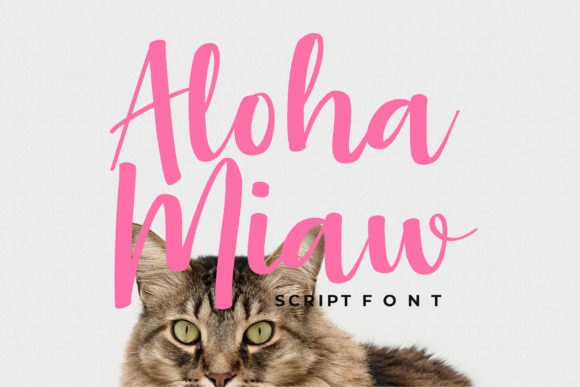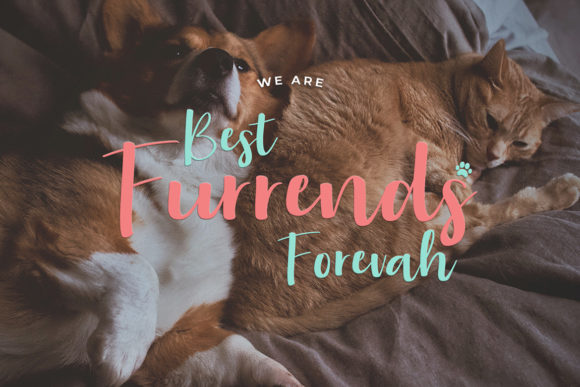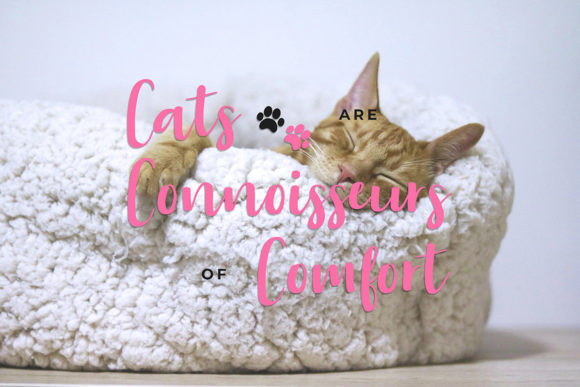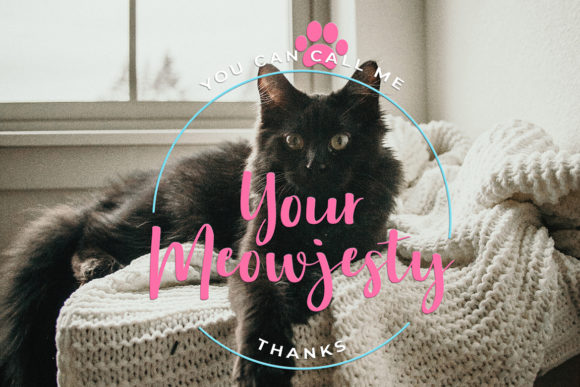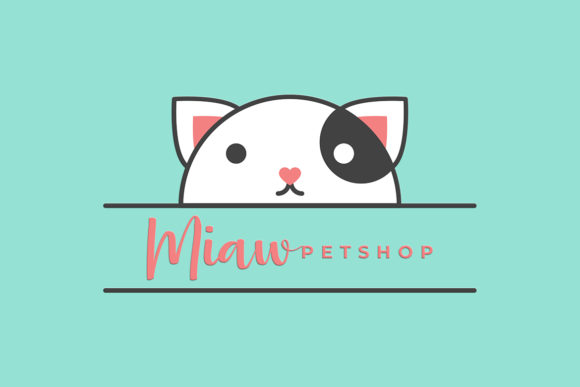
Aloha Miaw Font
About Aloha Miaw Font
Aloha Miaw feels incredibly cute and charming, and is simply the perfect calligraphy script for turning any crafting idea into a true standout!